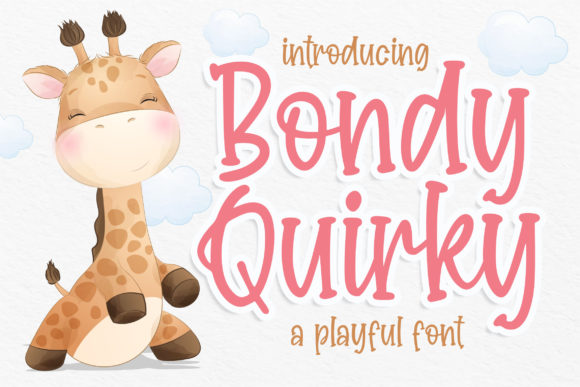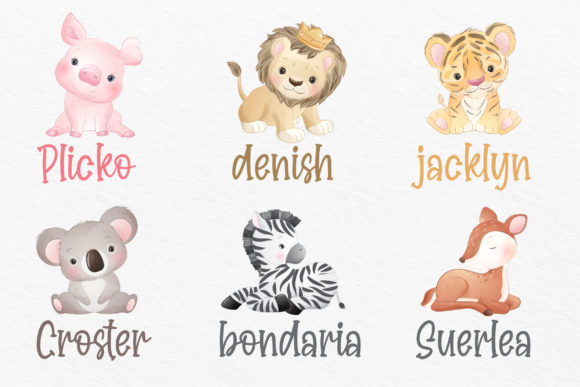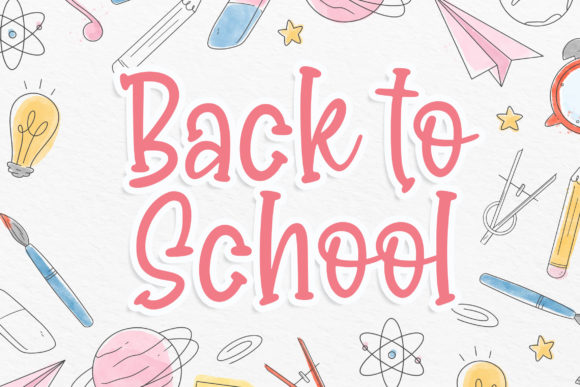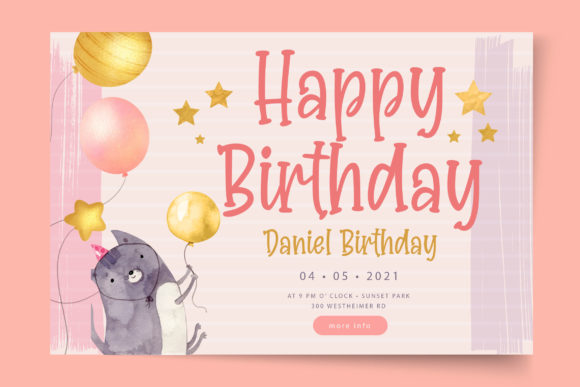
Bondy Quirky Font: A Cute Display Font for Playful Branding
About the Bondy Quirky Font
Step up your design game with Bondy Quirky Font, a font that exudes confidence and style. Bondy Quirky is a jolly and charming display font. Whimsical and a bit quirky, this font will brighten up each of your designs. Add it confidently to your projects, and you will love the results.
Bondy Quirky thrives in display contexts such as headlines, logos, short taglines, and posters where its playful character shines. It’s ideal for projects needing a touch of whimsy and charm, like children’s books, branding for playful products, or quirky social media campaigns. Avoid using it for body text or long paragraphs; its unconventional forms compromise readability in extended use.
Pair Bondy Quirky with a clean sans-serif like Open Sans for a balanced contrast, or a classic serif like Garamond for a more sophisticated feel. For a more playful combination, consider pairing it with a rounded geometric sans-serif. The contrast helps to ground the quirky nature of Bondy Quirky and improve overall visual hierarchy.
Its core personality is undeniably playful and friendly, making it a great choice for brands aiming for a lighthearted and approachable image. However, its whimsical nature may not suit projects requiring a formal or serious tone.
Bondy Quirky Font Usage Examples
Bondy Quirky Font Example